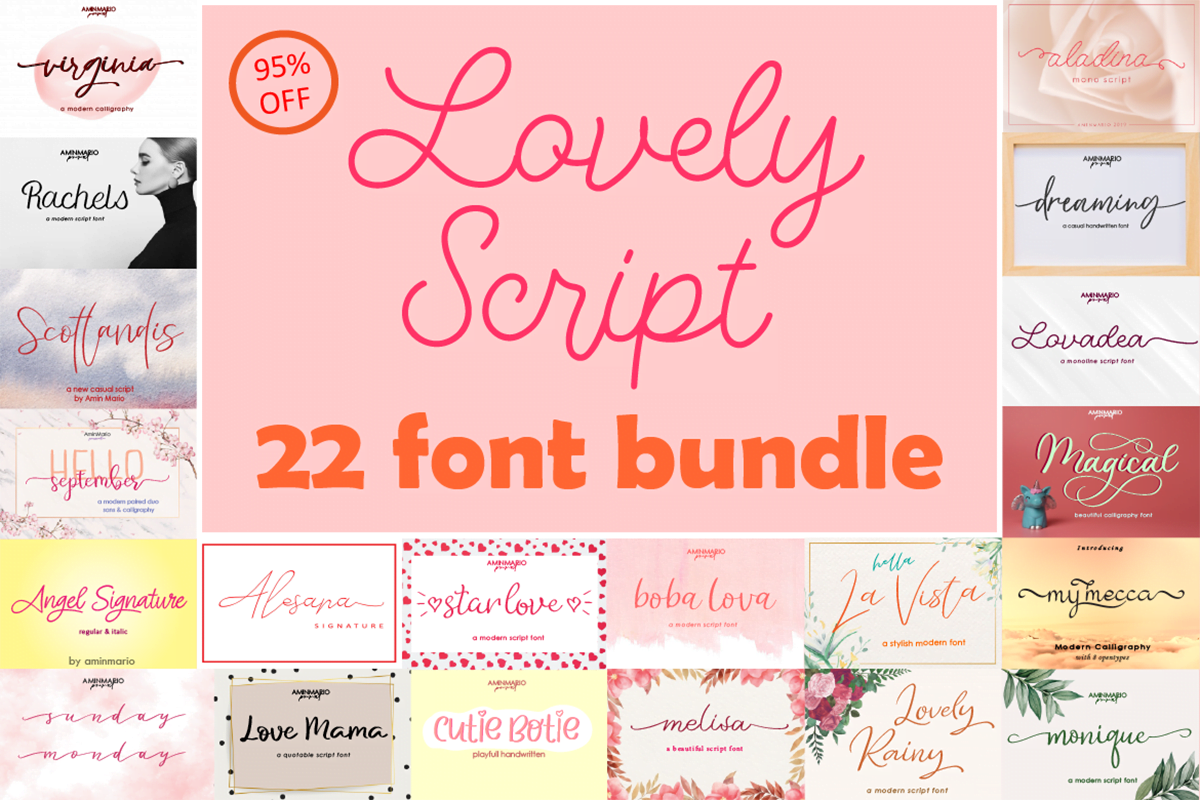
Unlock creativity with the Pretty Script Font Bundle. This beautiful assortment gives quite a lot of elegant script fonts designed to raise your initiatives, making each bit uniquely fascinating. Good for designers and creatives, these fonts present versatility and allure for invites, branding, and merchandising.
- Assortment: Various and stylish script fonts
- Utilization: Superb for invites, branding, and extra
The bundle comes with many opentype options reminiscent of Alternates,Ligature,Title and Ending Swash, and in addition assist multilingual.
This bundle is ideal for logos, watermarks on images, signatures, branding, commercial, quotes, invites, stationery, wedding ceremony design,album covers, enterprise playing cards, clothes, magazines, posters, and extra!